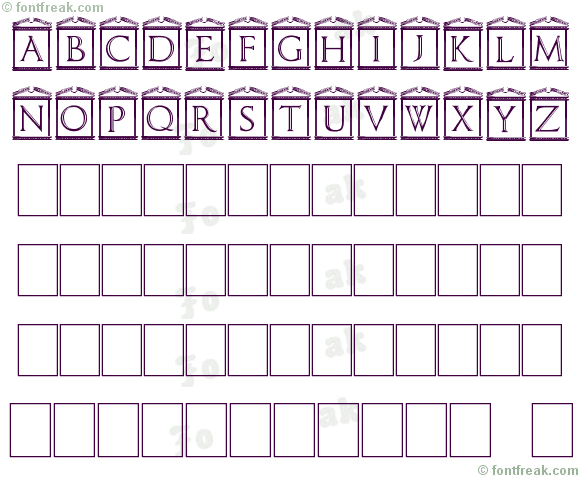
PaladinCapitals
About Paladin
Paladin, designed by Paul Lloyd, is a striking serif typeface that embodies elegance and sophistication. As a freeware font, it offers both accessibility and versatility for various design projects. The visual characteristics of Paladin are defined by its distinct stroke weight, which balances between boldness and delicacy, creating a refined contrast that captures attention without overwhelming the viewer. The letterforms feature well-defined serifs and ample spacing, enhancing readability while contributing to a classic aesthetic. The decorative elements, such as the subtle flares and curves, add a touch of artistry, making it suitable for both formal and creative applications.
Paladin is ideal for a range of use cases, including wedding invitations, where its elegant style can convey romance and celebration. It is also perfect for movie posters, giving a vintage yet modern feel that draws viewers in. Restaurant menus can benefit from its sophisticated charm, making dishes appear more enticing and upscale. Additionally, Paladin works well for book covers, providing a literary touch that appeals to avid readers. The font targets graphic designers, small business owners, and content creators looking to elevate their projects with a touch of class.
What sets the Paladin font apart is its ability to blend timeless design with modern sensibilities, making it a versatile choice for a variety of applications. Whether you are crafting an elegant invitation or designing promotional material, the Paladin font free download provides you with a beautifully crafted typeface that enhances your creative vision. Its unique combination of style and functionality ensures it stands out in any design context, making it a valuable addition to your font library.